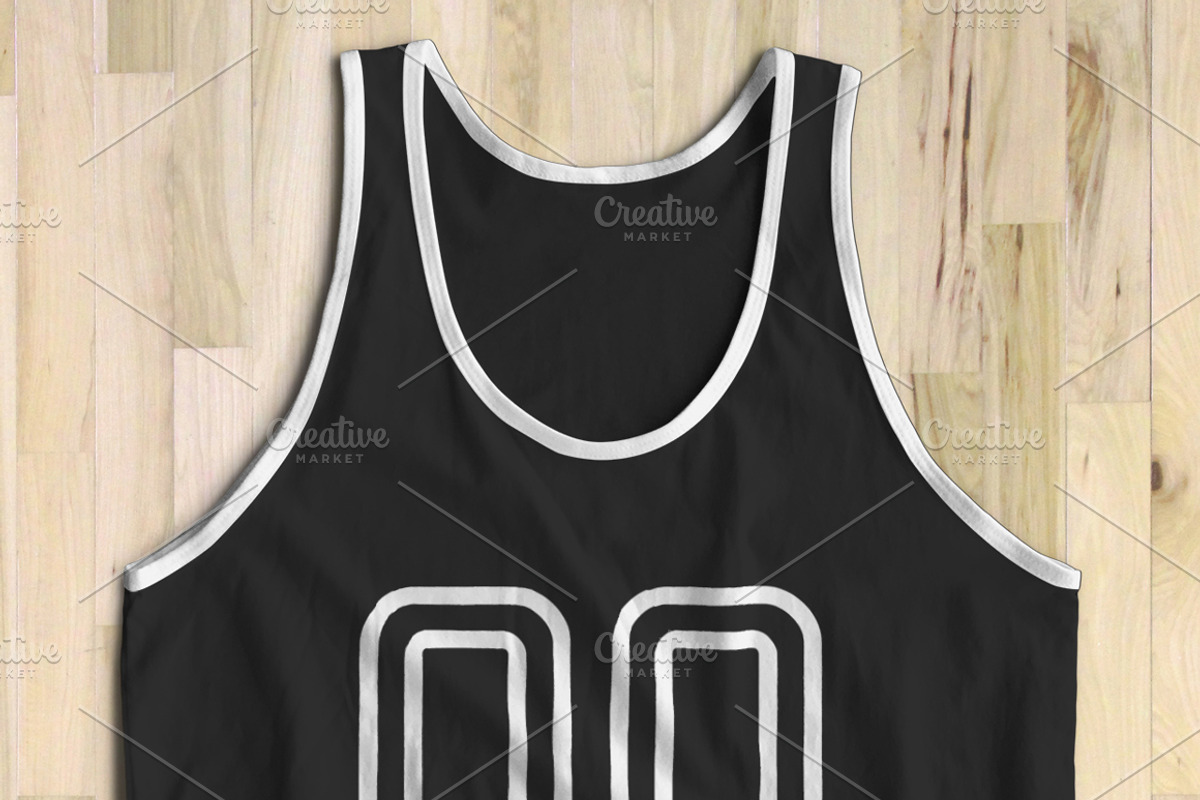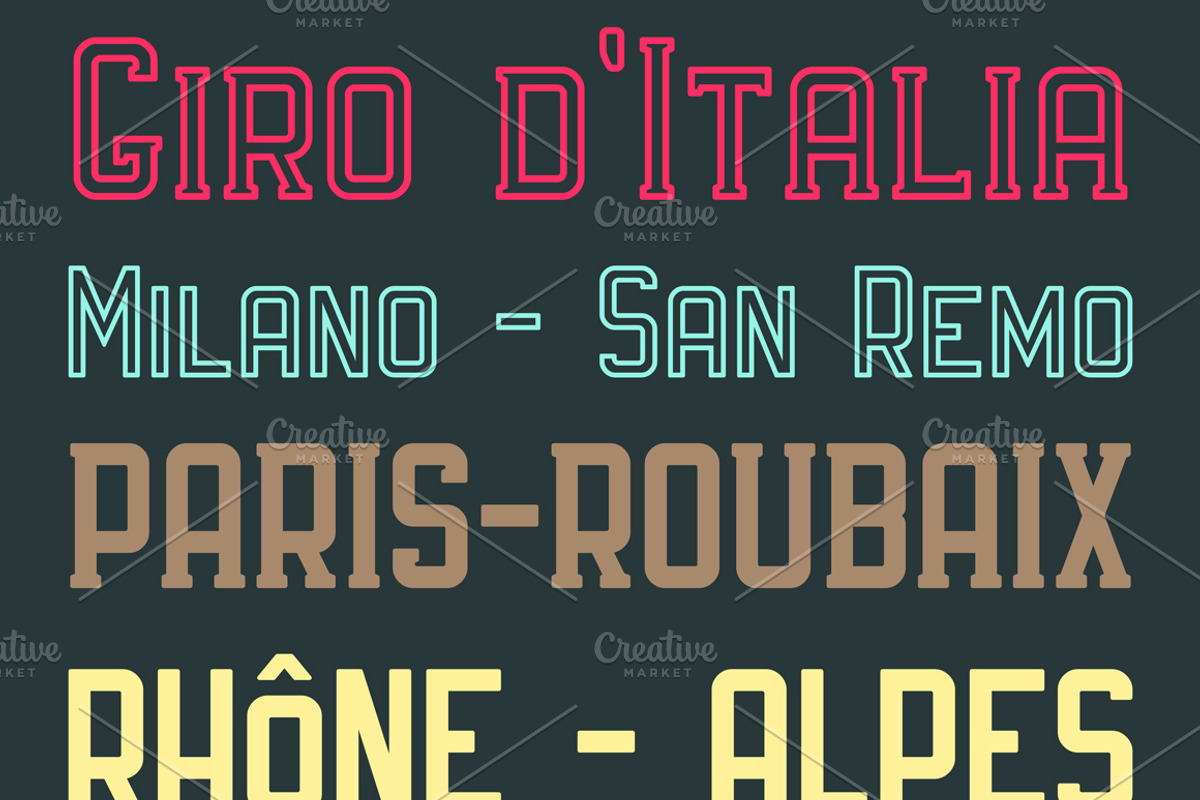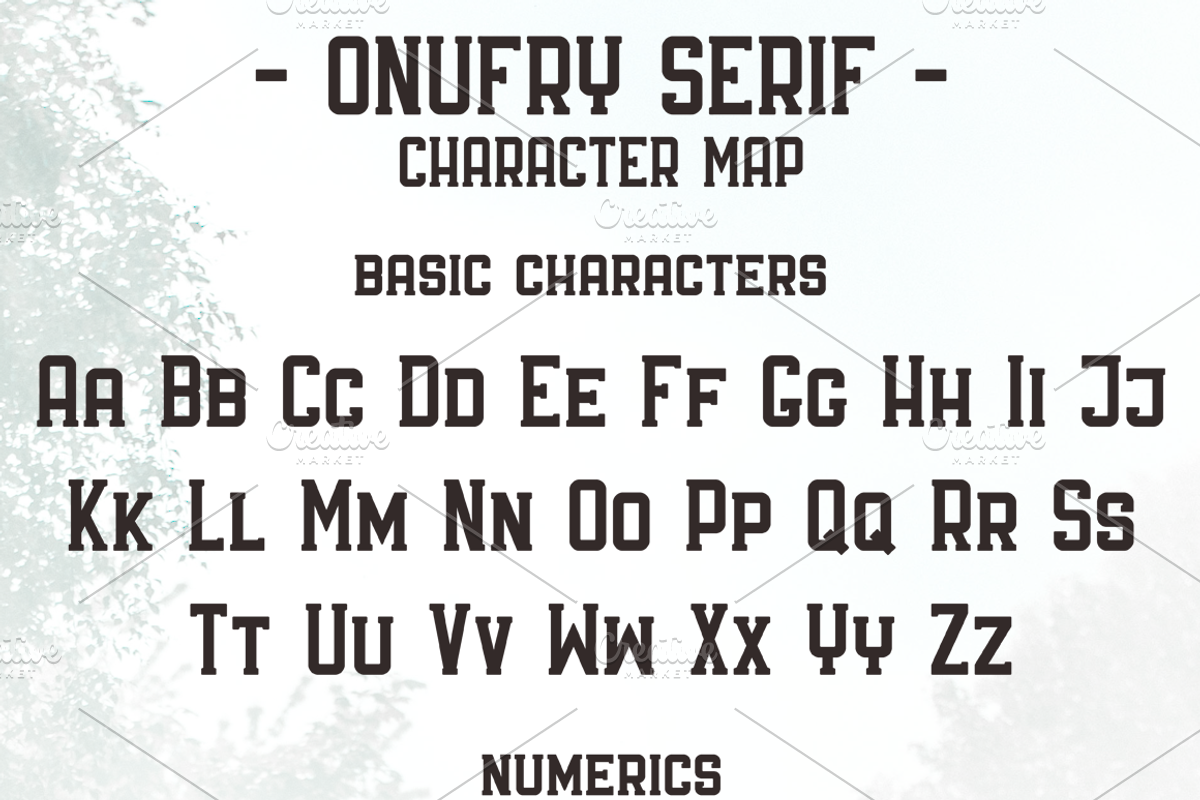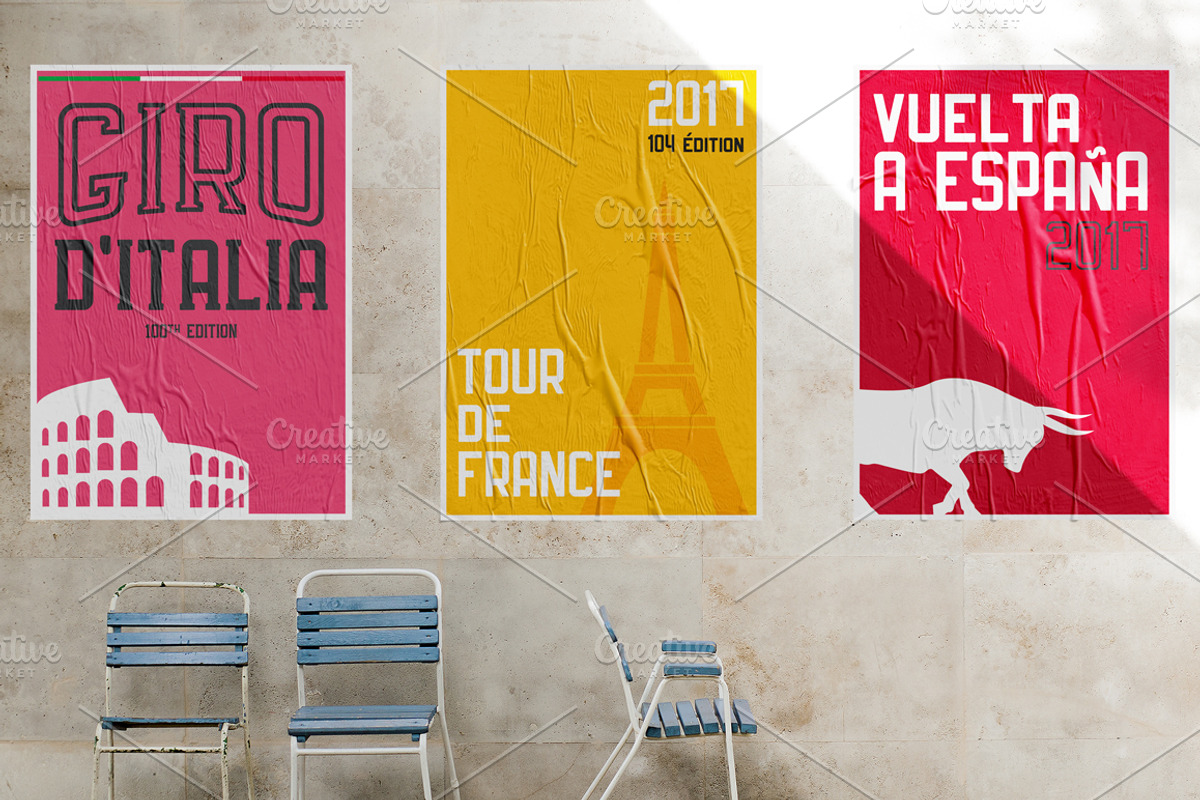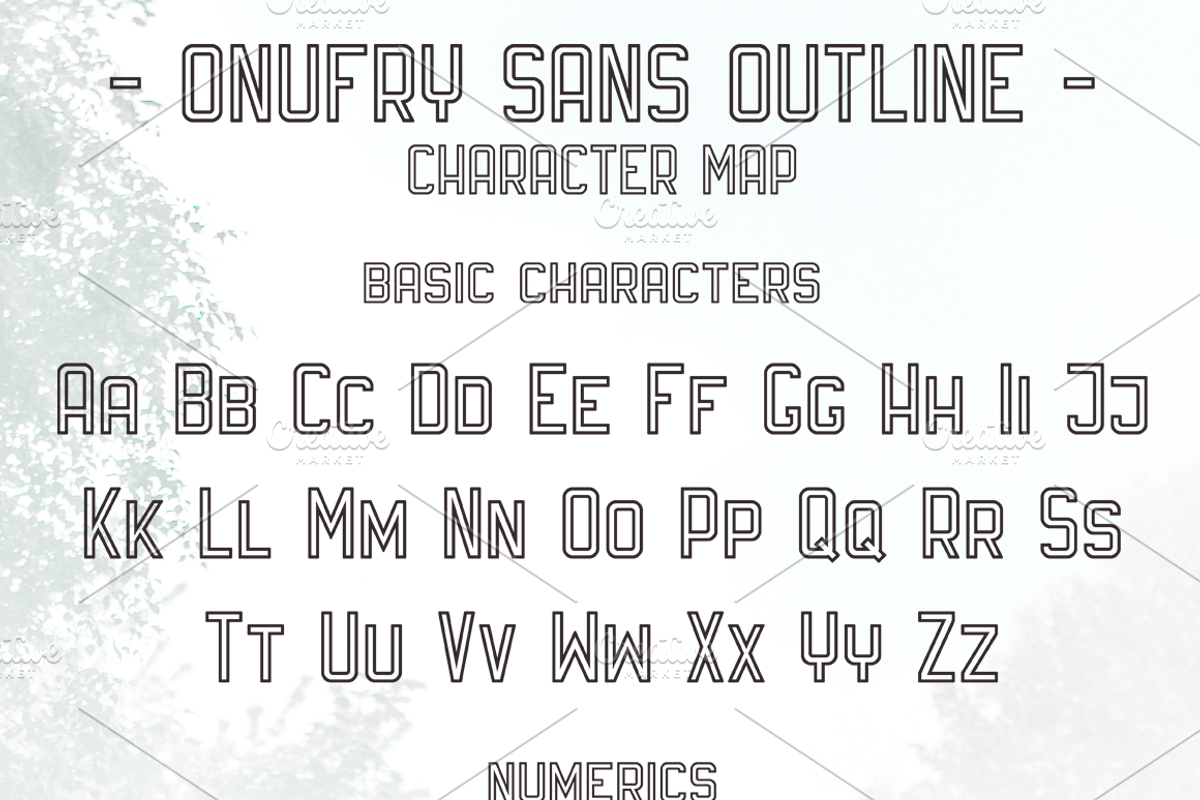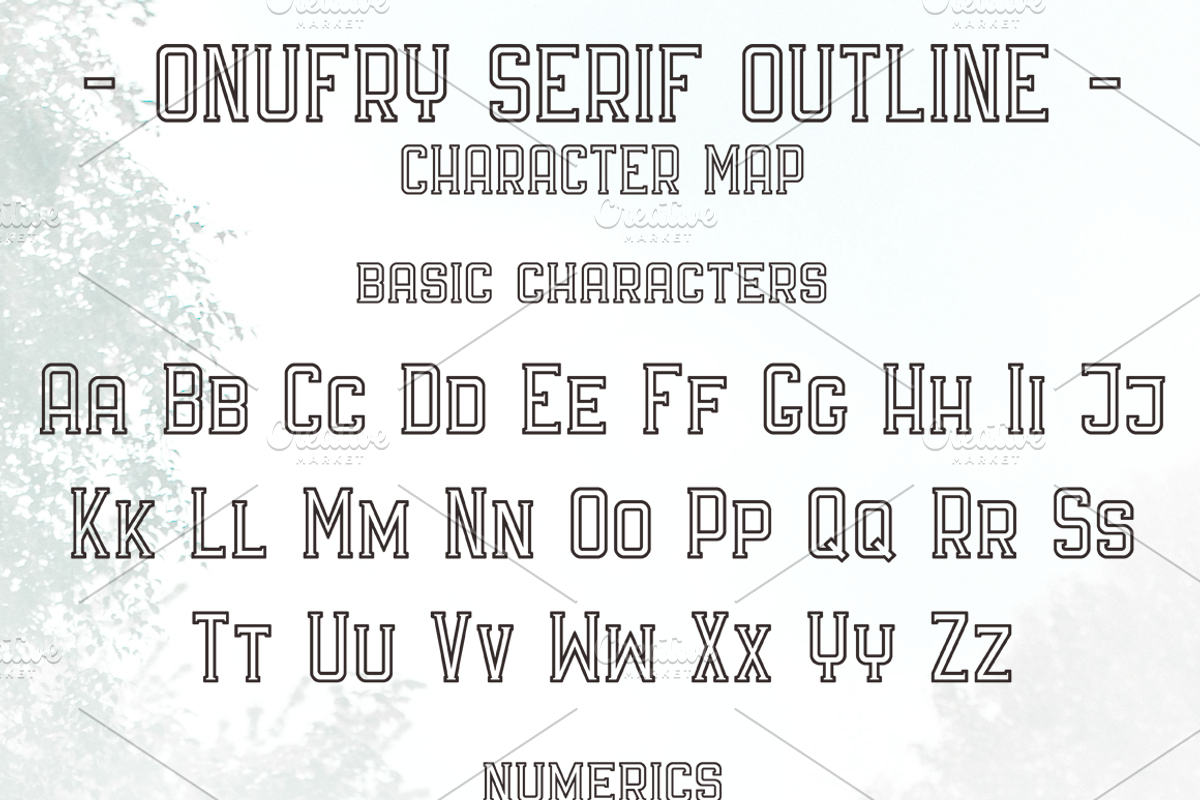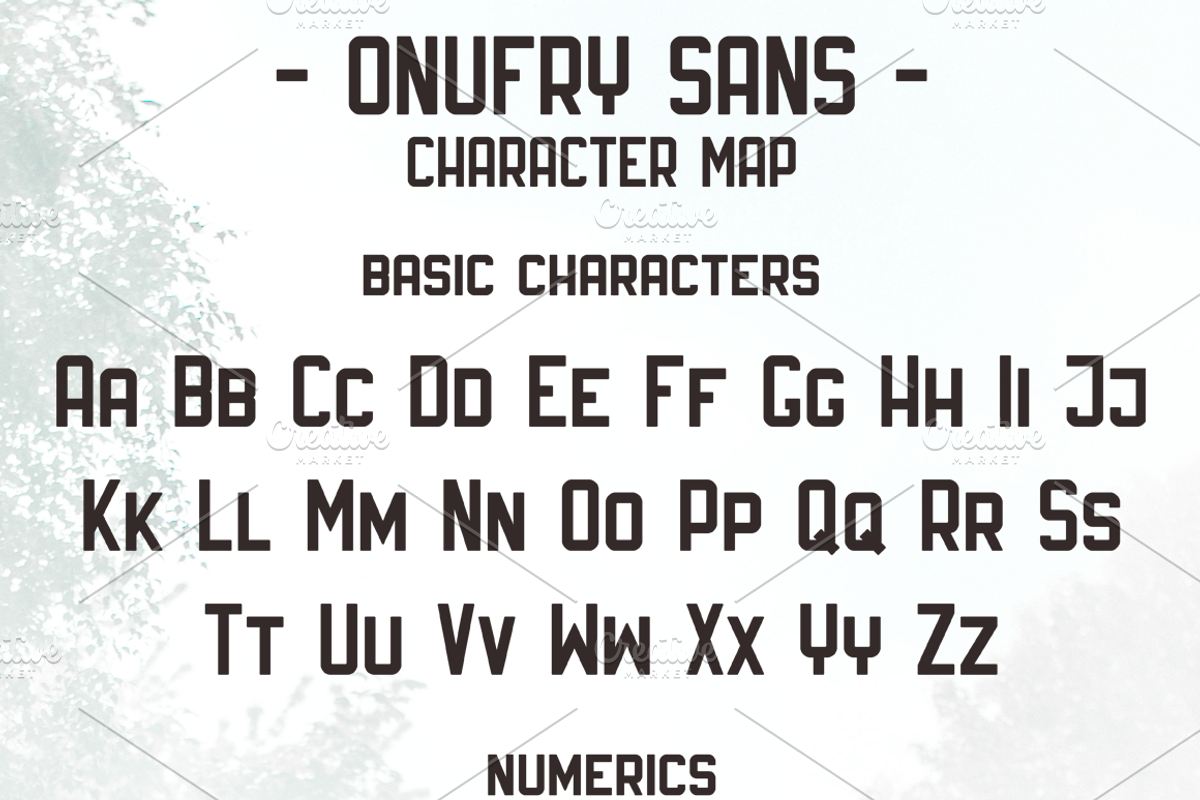
Onufry Font
Onufry Font by Bart Wesolek is a font selected for branding, posters, packaging, typography.
Why Onufry Font is worth a look
Onufry Font by Bart Wesolek fits naturally into Branding, posters, packaging, typography.